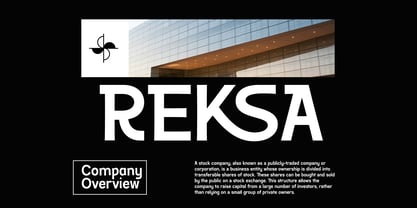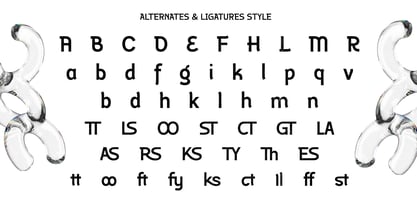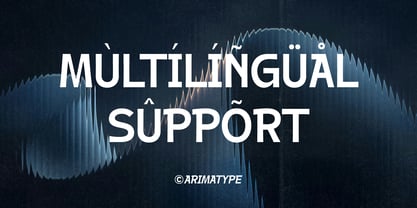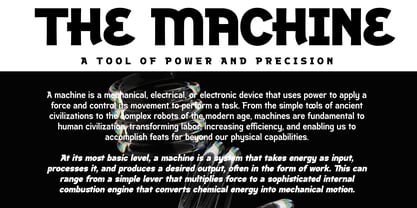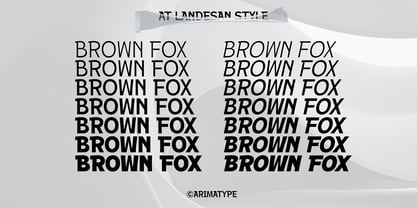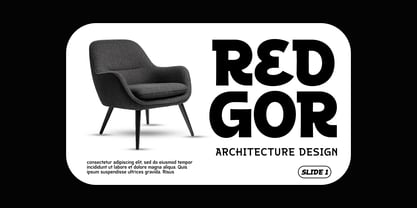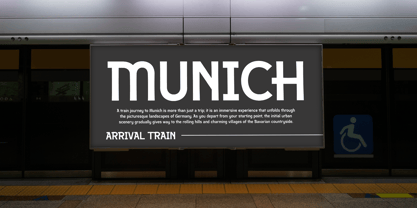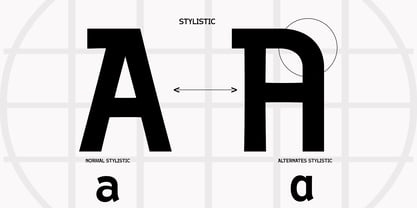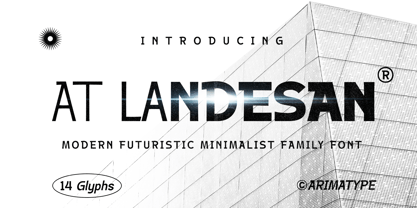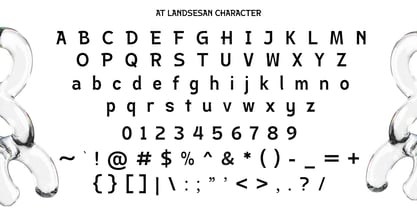
AT Landesan
La famille de polices AT Landesan a été conçue par Amri Mauludin et publiée par ArimaType. AT Landesan contient 14 styles et options de package familial. En savoir plus sur cette famille
Landesan is a serif font infused with display qualities, delivering a casual, playful, and postmodern vibe. Breaking away from the rigidity of traditional serif rules, Landesan was born from free-flowing imagination, making it the perfect choice for projects that demand a bold and distinctive identity. Inspired by the scarcity of fonts in this style, Landesan bridges the gap between the elegance of serif and the expressive nature of display. The result is a versatile and dynamic typeface that amplifies creativity while maintaining a strong visual presence. Perfect for branding, product names, book titles, music albums, film posters, concert promotions, and editorial design — Landesan brings a unique and refreshing voice to your visual storytelling.